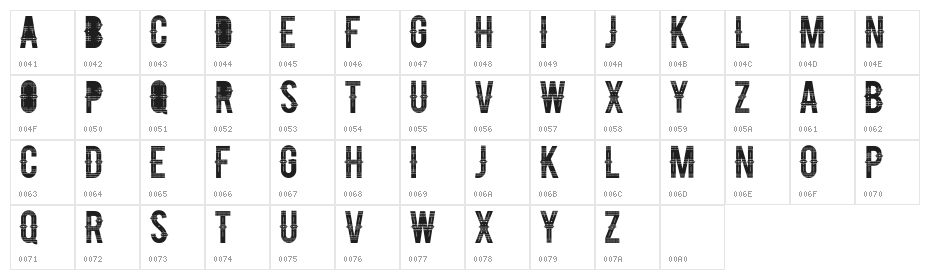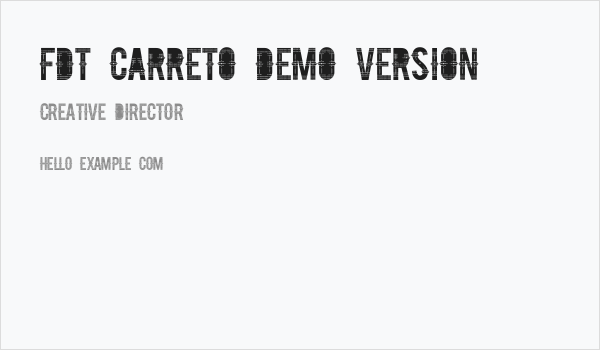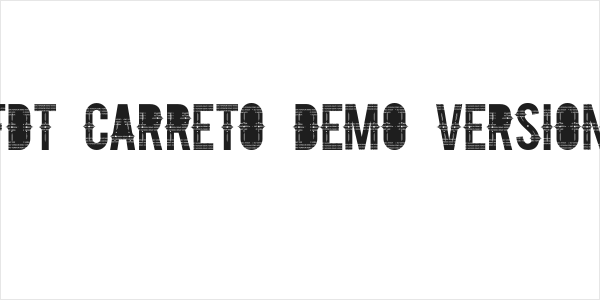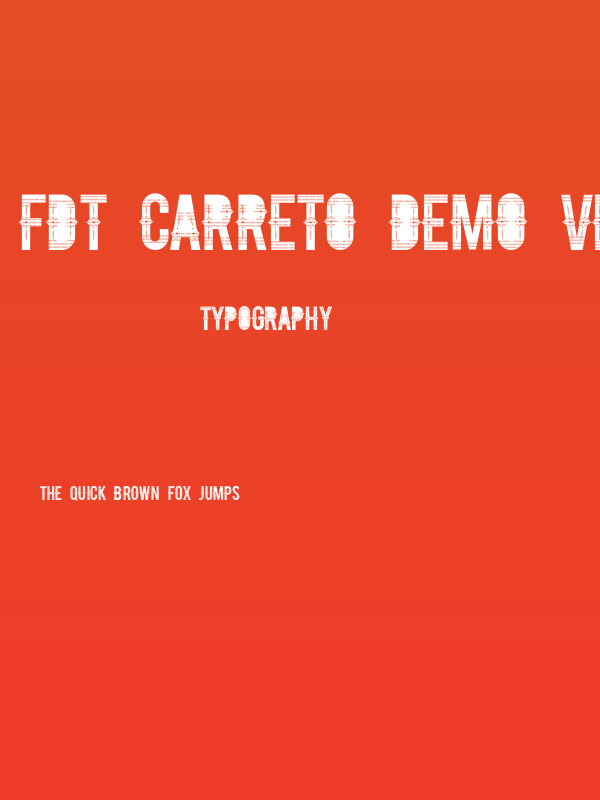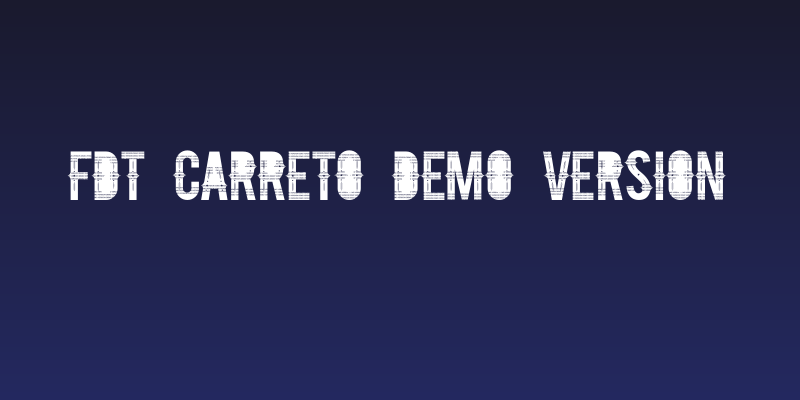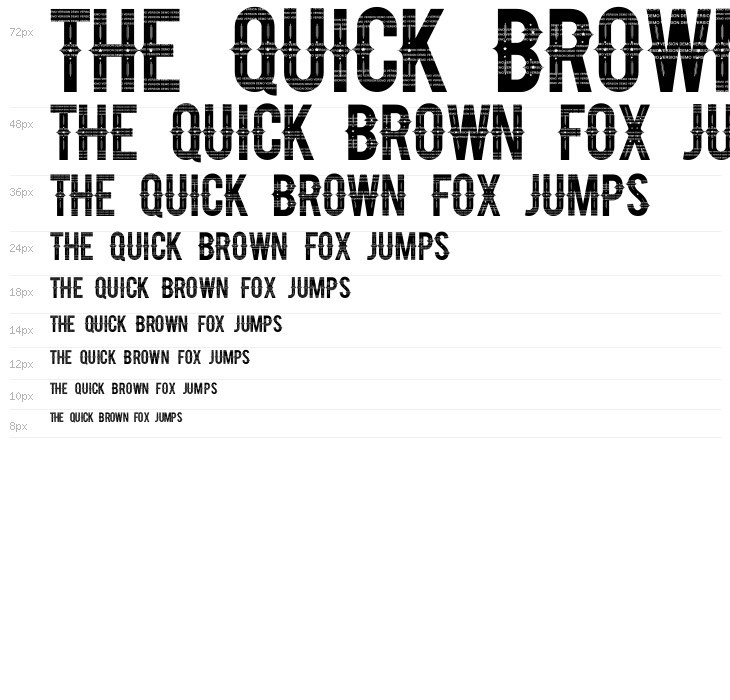
FDT_CARRETO_DEMO_VERSION Font
FDT_CARRETO_DEMO_VERSION Description
This font features a bold and impactful design with a distinct decorative pattern embedded within each character. The uppercase letters are strong and commanding, making them ideal for attention-grabbing headlines or titles. The intricate details within the letters add a unique flair, reminiscent of vintage or retro styles. The font's geometric structure and consistent stroke width contribute to its modern appeal, while the decorative elements provide a touch of elegance and sophistication. This combination makes it versatile for various creative projects.
| Overall Style | Vintage, Decorative |
| Proposed Projects | Ideal for poster designs, branding projects, album covers, and any creative work that requires a bold statement. |